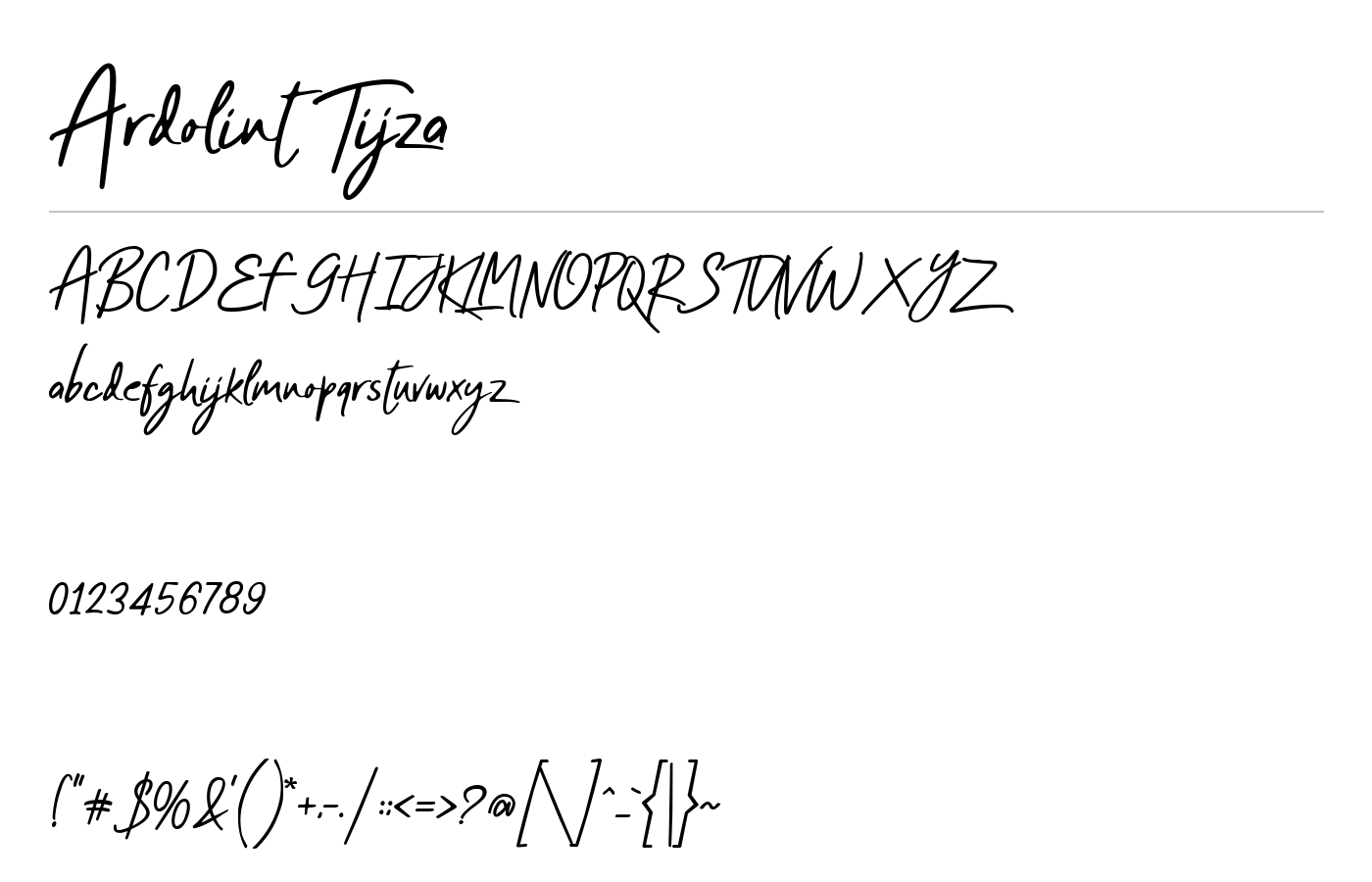
Ardolint Tijza is a lively, handwritten script font with a casual and artistic flair. It features thin, fluid strokes with a natural, slightly irregular flow that mimics genuine handwriting, making it perfect for creative projects and informal branding. This font works well in logos, social media graphics, invitations, and any design where a personal, approachable touch is desired.
Ardolint Tijza Font
About Ardolint Tijza Font
| Font family | Ardolint Tijza Font |
| Designer | Mabhal Studio - Abdullah, Banten - Indonesia |